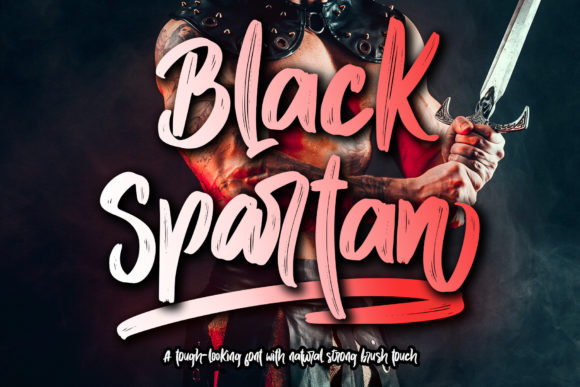
Black Spartan Font Download Script Fonts: In the vast world of typography, some fonts grab attention instantly not just because of their beauty, but because of the feeling they convey. Black Spartan Font is one of those rare gems. With its bold handwritten style, this typeface stands tall, delivering messages with confidence while still carrying a touch of artistic elegance. Whether you’re designing a powerful logo, a stylish headline, or a nostalgic branding project, Black Spartan’s character makes it impossible to ignore.
If fonts were personalities, Black Spartan would be the strong yet charming individual who walks into the room and instantly becomes the center of attention. It blends strength, vintage appeal, and artistic flair, making it versatile for both modern and retro-inspired designs.
1. What Makes Black Spartan Font Special?
Black Spartan is not your typical handwritten font. It’s been meticulously crafted to balance raw, bold strokes with a sense of fluidity. This gives it both a handmade authenticity and professional polish.
Key features include:
Bold handwritten style – Thick lines that make text pop even at a distance.
PUA encoding – Unlocks access to all glyphs, swashes, and alternates without special software.
Dynamic personality – Works equally well in vintage themes, rustic branding, or high-energy modern designs.
Legibility with style – Despite being decorative, it maintains clarity in both small and large text.
Designers often describe it as confident yet warm. You get the assertiveness of bold typography combined with the friendly vibe of handwritten letters.
2. History and Design Inspiration
The name Black Spartan already hints at its identity: a warrior-like strength (“Spartan”) combined with dark, bold visual weight (“Black”). The style is inspired by retro hand-painted signage, old-school logotypes, and classic advertising posters, where lettering needed to stand out without sacrificing beauty.
Many fonts today are either strictly minimalist or overly decorative. Black Spartan strikes the sweet spot — it’s artistic enough to carry personality but restrained enough to be functional in real-world branding.
3. Where Can You Use Black Spartan Font?
This typeface’s adaptability is one of its greatest strengths. Here are some creative ways to use it:
Brand Logos – Perfect for boutique shops, coffee brands, clothing lines, or creative agencies.
Headlines & Posters – Makes sure your main message doesn’t go unnoticed.
Social Media Graphics – Great for Instagram quotes, YouTube thumbnails, and Facebook ads.
Merchandise Design – Works beautifully on T-shirts, mugs, packaging, and product labels.
Event Invitations – Wedding cards, party invites, or special occasion announcements with a bold, personal touch.
Book Covers – Especially for adventure, historical fiction, or motivational themes.
Because of its confident style, Black Spartan can become the voice of your design, not just a supporting element.
5. Pairing Black Spartan with Other Fonts
A bold handwritten font like Black Spartan works best when paired with a more subtle companion. Here are a few great combinations:
Black Spartan + Montserrat – Modern sans-serif balance.
Black Spartan + Playfair Display – Elegant serif for sophistication.
Black Spartan + Open Sans – Clean, minimal body text partner.
Black Spartan + Bebas Neue – Double impact for high-energy designs.
7. Tips for Designing with Black Spartan
Use it for focal points – Don’t overload entire paragraphs with it. Instead, use it for titles, headlines, or logo text.
Experiment with swashes – Take advantage of the PUA glyphs to add stylistic flourishes.
Play with texture – It pairs beautifully with vintage paper backgrounds, chalk effects, or distressed overlays.
Color it bold – While it looks striking in black, try gold, crimson, or deep navy for added personality.
Final Thoughts
The Black Spartan Font isn’t just another handwritten typeface — it’s a design powerhouse. It brings together the strength of bold strokes, the charm of vintage lettering, and the flexibility of modern digital design. Whether you’re a graphic designer, a brand creator, or simply someone looking to make a statement, Black Spartan gives your projects a unique visual voice.